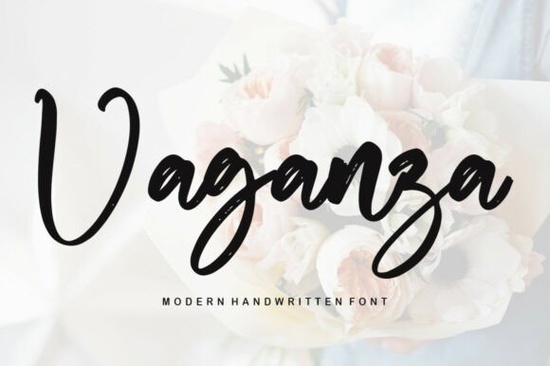
Finding the right typography for a delicate project can take hours of scrolling. The Vaganza Font offers a handwritten, stylish script that works well for greeting cards, wedding invitations, and boutique branding. If you run a print-on-demand shop or just enjoy crafting at home, having a reliable, cute typeface saves time and makes your final products look professional. You can preview the delicate Vaganza typography to see how it fits your current design board.
What types of projects work best with a delicate handwritten script?
Handwritten scripts shine when they add a human touch to physical items. Designers often use these lettering styles for wedding themes, Christmas cards, and birthday banners. Because the strokes are fine and elegant, they are perfect for short quotes or image overlays rather than long blocks of text. Crafters making custom stickers will find that the fluid connections between letters cut cleanly on vinyl machines. The natural flow brings a warm, personal feel to any paper craft.
How do you pair this font with other typefaces?
A common challenge for small businesses is making sure their brand text is readable. When setting up a menu or invitation, use the script for the main titles and a simple sans-serif for the venue details or pricing. If you want to add a secondary cursive element for accents, a softer option like Vanilla Cream provides a nice contrast. You can browse more sweet cursive styles to build a versatile typography toolkit for your clients.
Is this typography suitable for commercial print-on-demand products?
Readability at different sizes is critical for print-on-demand sellers. A common mistake in apparel design is choosing a font that is too thin to print clearly on fabric. While delicate, this typeface maintains enough weight for direct-to-garment printing and ceramic mugs. For bolder statements on tote bags where you need thicker strokes, you might test Marella to see how it holds up on textured materials. Checking out bold signature typefaces helps you offer variety in your storefront.
Where can creative hobbyists use these scripts digitally?
Digital crafting offers endless ways to use custom typography. Adding a personal touch to digital photos is a popular method for hobbyists to share their work on social media. You can place quotes over nature photography or use the text in digital planner stickers. Another excellent option for casual journaling headers is Everyone, which brings an informal, everyday feel to your layouts. Mixing it with casual everyday handwriting keeps your digital scrapbooks looking authentic.
If you are designing coastal-themed stationery or beach wedding invitations, pairing your main text with Wave On Earth can establish a relaxed mood. Exploring different ocean-inspired lettering options ensures your summer collections stand out. Handwritten scripts work beautifully when they match the specific theme and tone of your seasonal projects.
Which design software supports custom script files?
Quick checklist for your next project
- Check your licensing: Ensure you have the correct commercial license if you plan to sell physical products like mugs or apparel.
- Test the print size: Print a sample page at 100% scale to verify the delicate strokes remain legible on your chosen paper.
- Pair with sans-serif: Balance the ornate script with a clean, simple font for body text to maintain high readability.
- Weld your letters: If using a vinyl cutter, use the weld tool in your software to ensure the connected script cuts as a single piece.